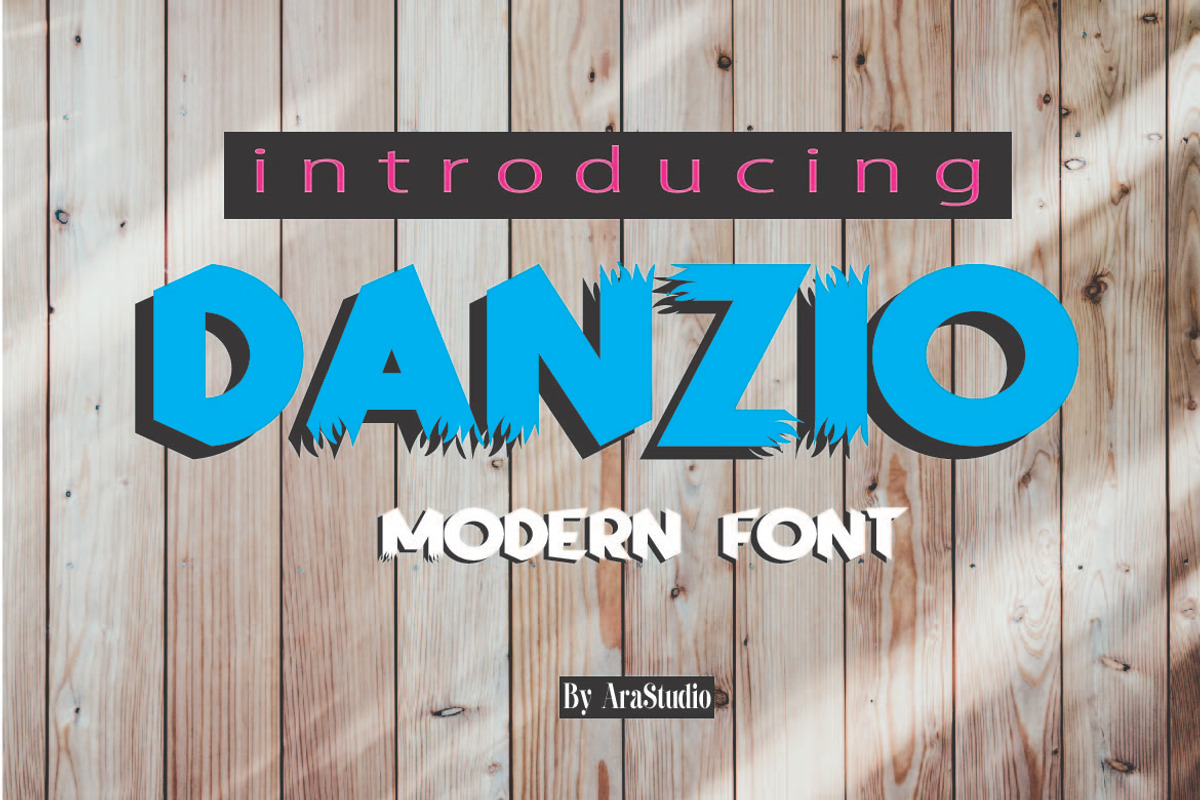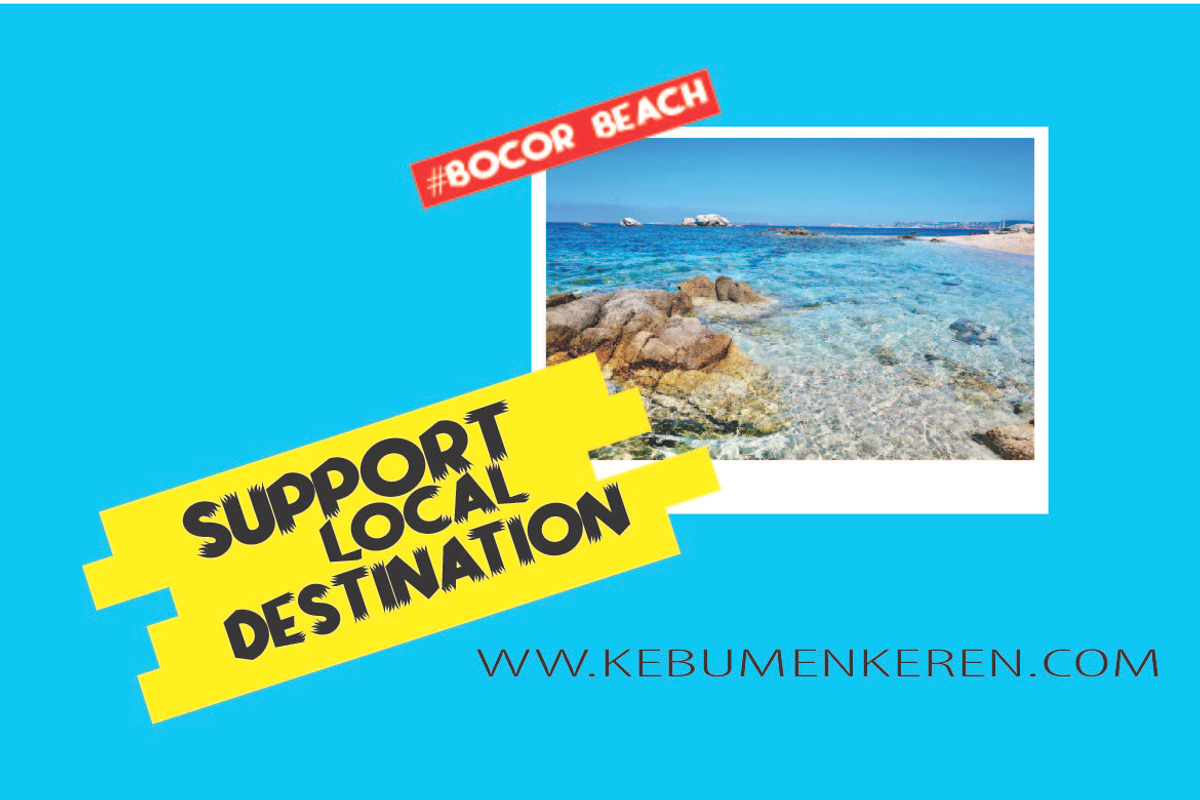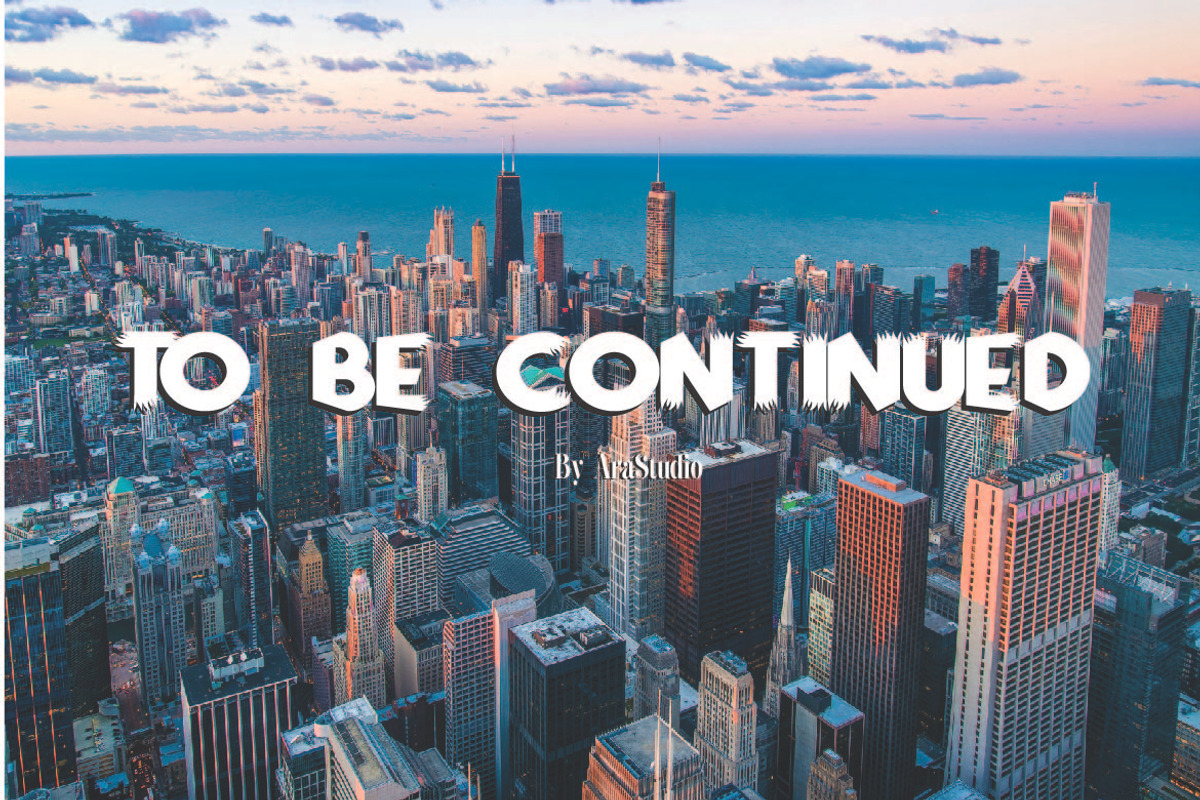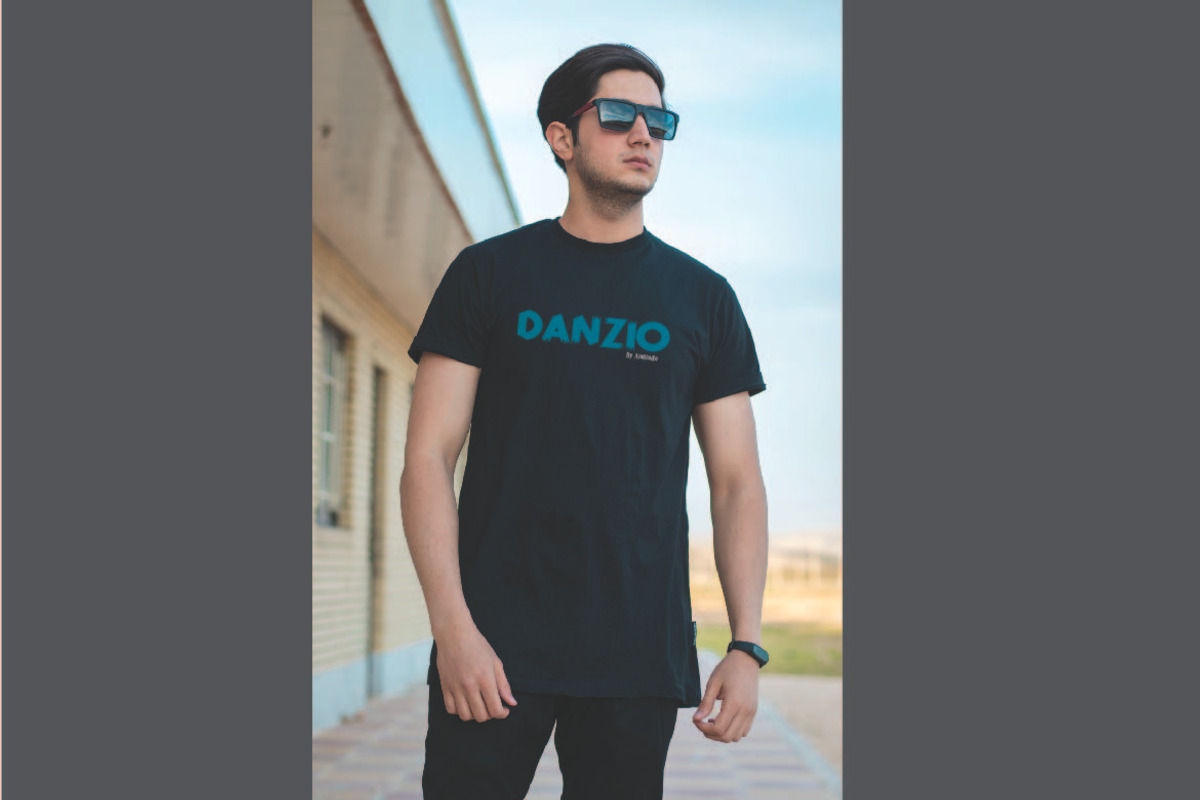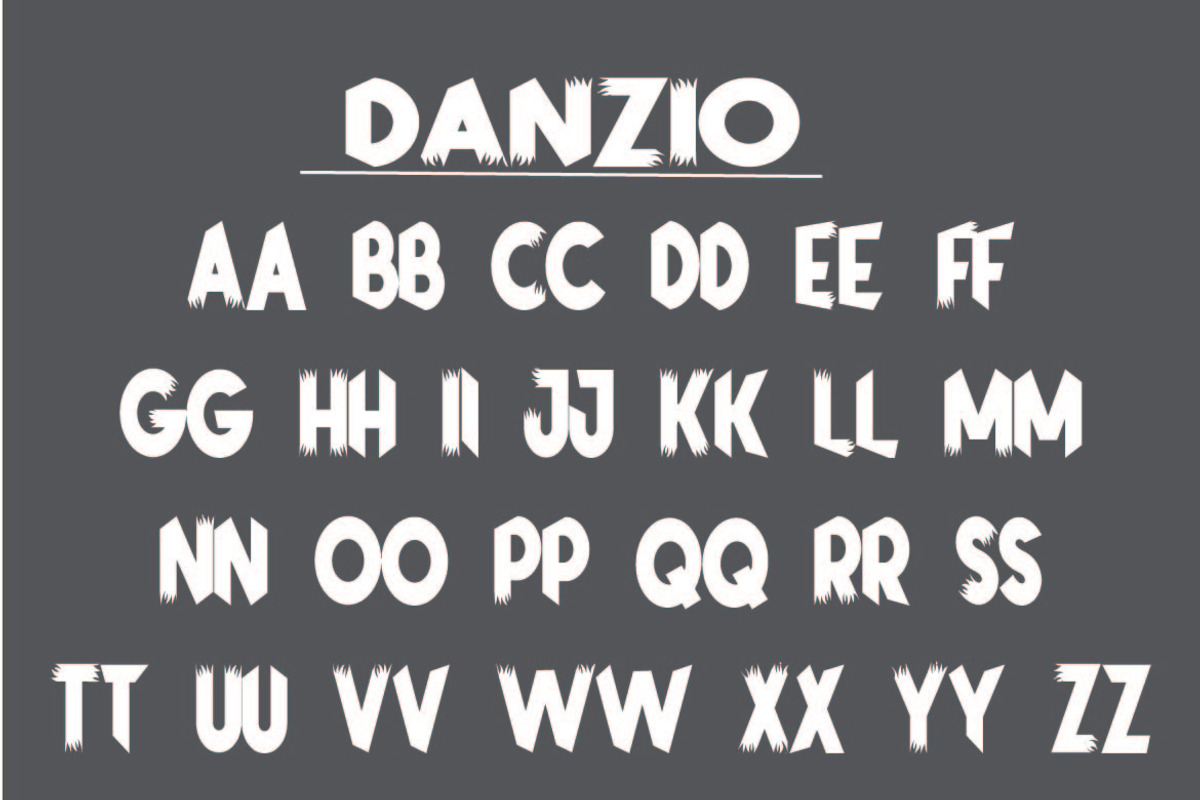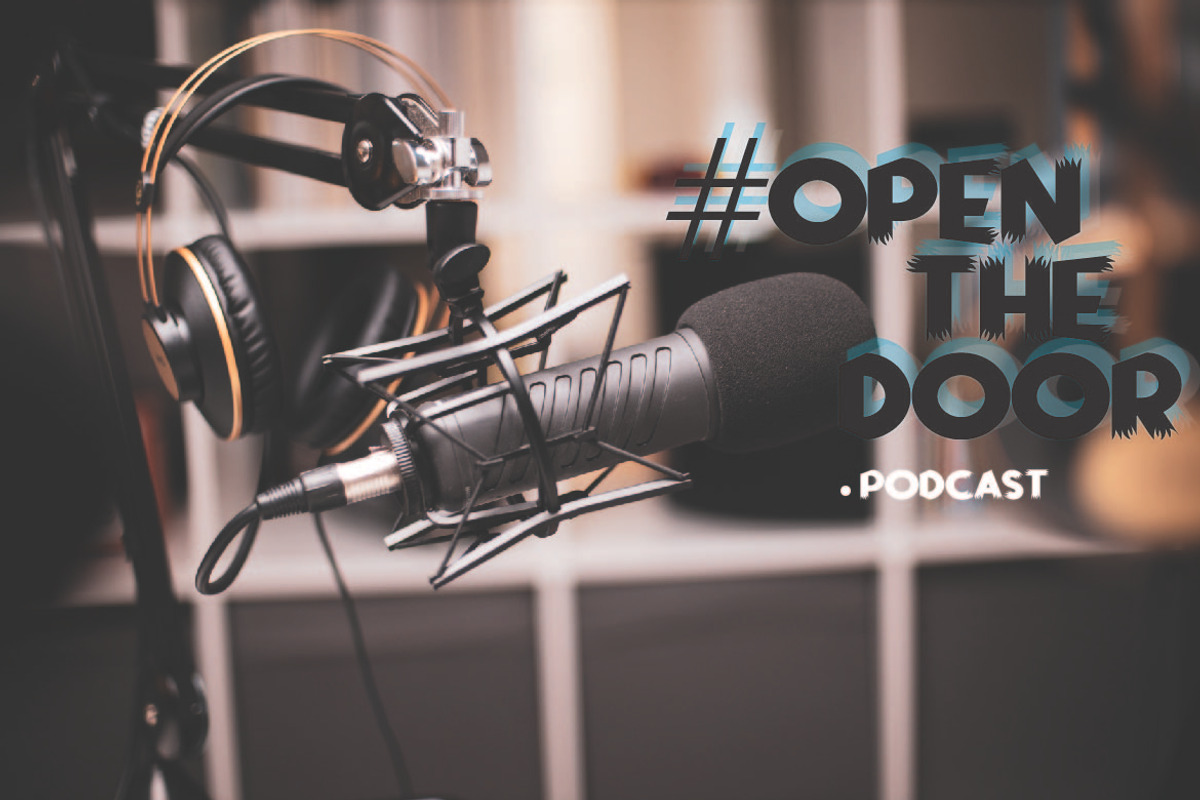
Danzio
Introducing Danzio - Modern Font with all caps style and bold. You can combine a unique uppercase and lowercase, so it looks like natural.
And this font perfect for signature, logo, branding, poster, band, apparel, photography, title, social media post, ad banner, book cover, product packaging, and advertising